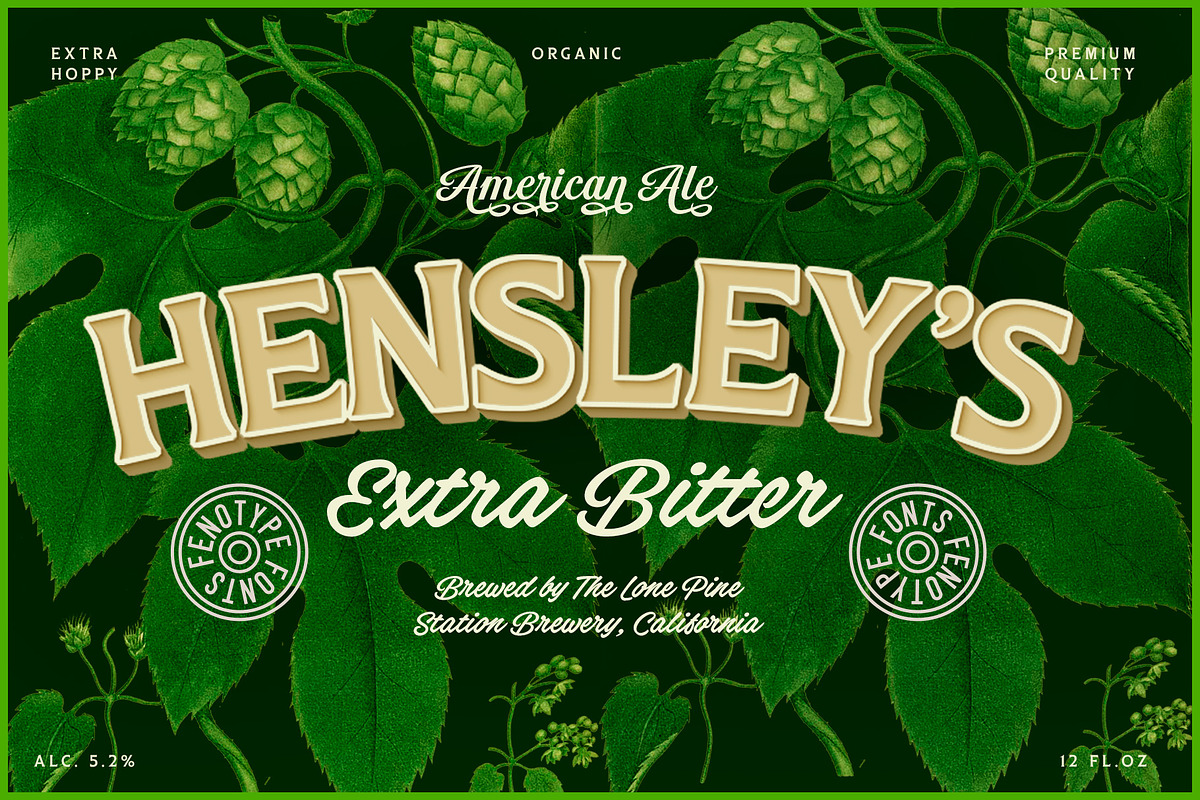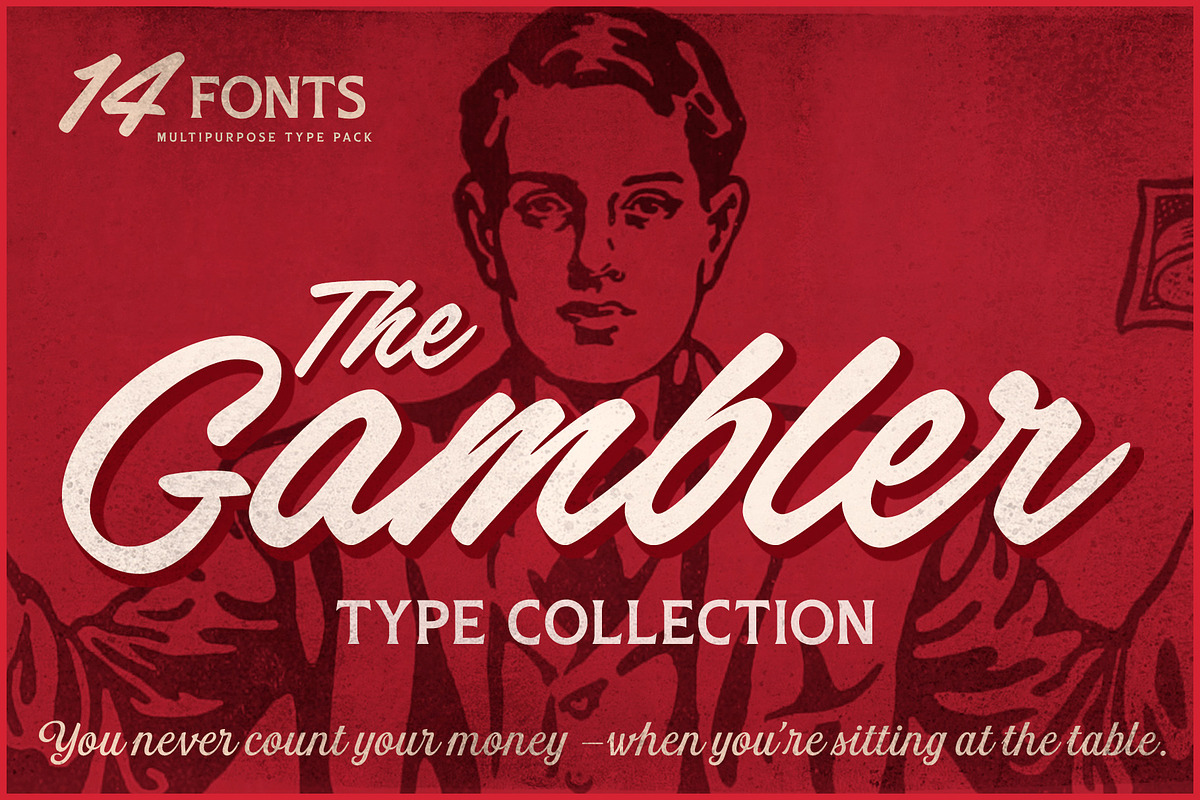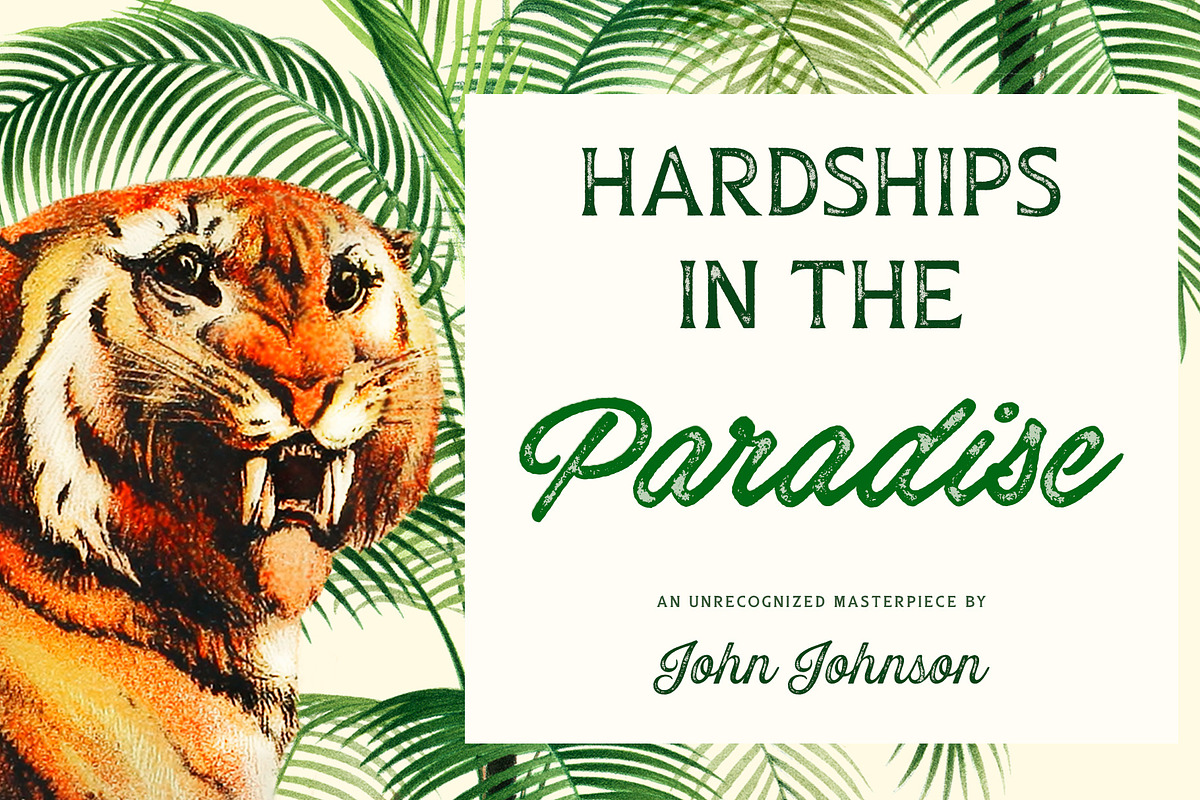
Gambler Brush
Gambler Brush is a soft brush script with low contrast and large x-height. Gambler Brush comes with following OpenType features: Standard Ligatures and Contextual Alternates that are automatically on and that keep the connections smooth. For less uneven word picture try Stylistic or Swash Alternates. Gambler Brush is PUA encoded so you can access the extra characters in most graphic design softwares.